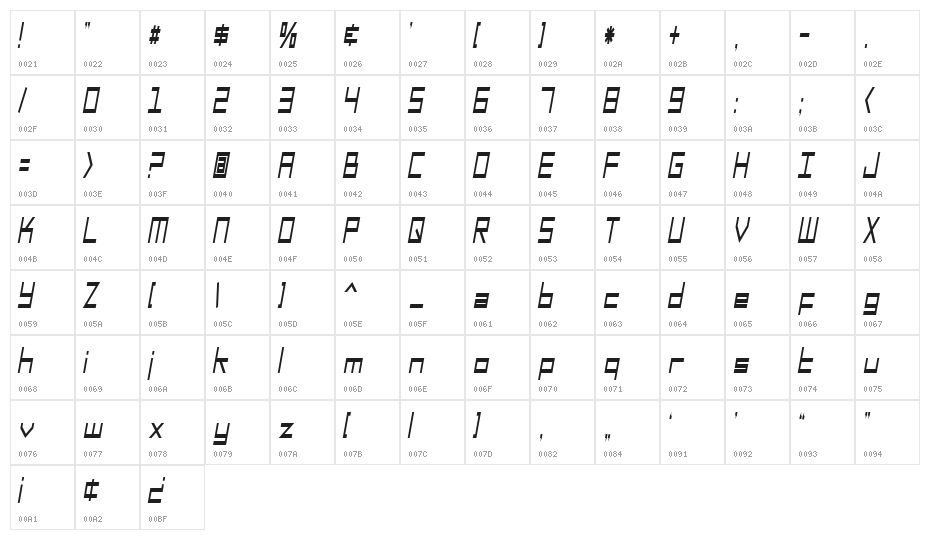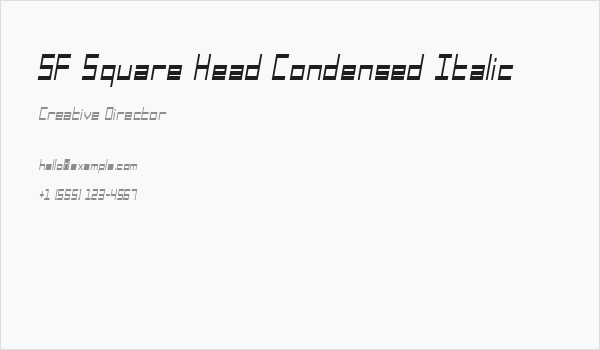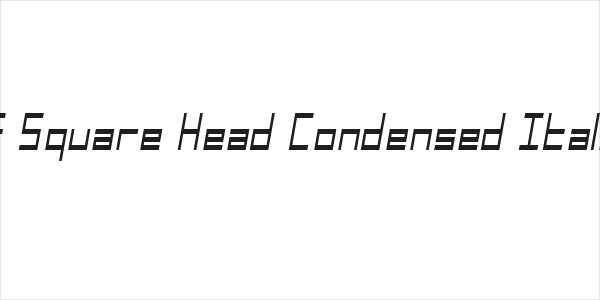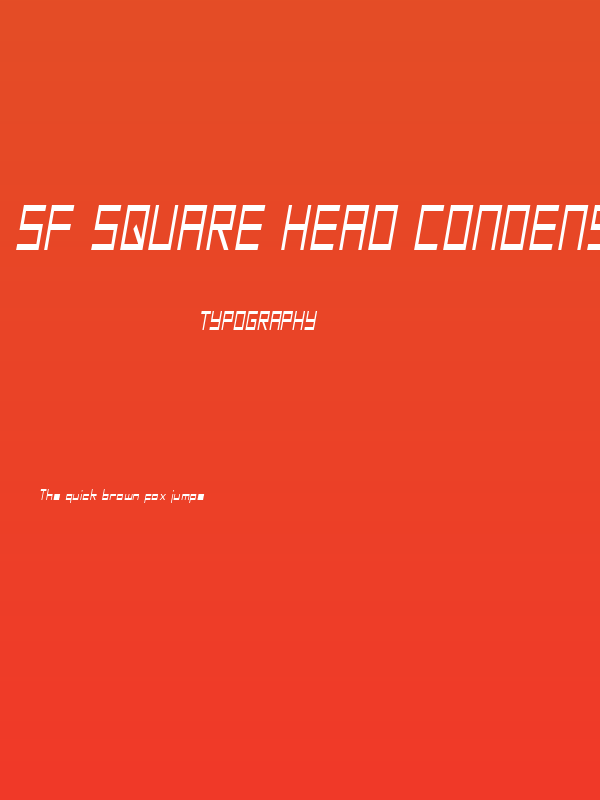
SF Square Head Condensed Italic Font
SF Square Head Condensed Italic Description
This font features a modern, geometric design with a condensed and italicized style. The characters are constructed with sharp, angular lines, giving it a futuristic and technical appearance. The uppercase and lowercase letters maintain a consistent height, contributing to a uniform look. The numerals and special characters follow the same angular theme, ensuring cohesion across all glyphs. The overall design is sleek and minimalistic, making it suitable for projects that require a contemporary and edgy aesthetic.
Proposed ProjectsIdeal for technology branding, futuristic posters, video game interfaces, and sci-fi themed designs.